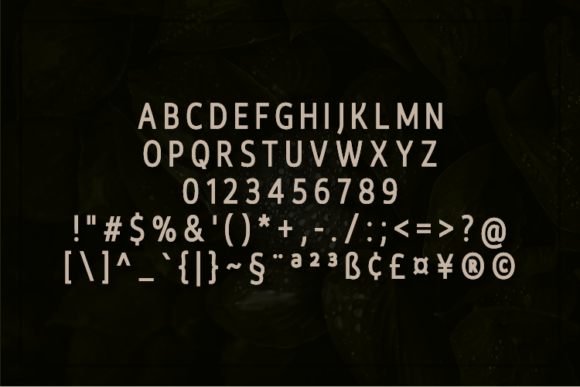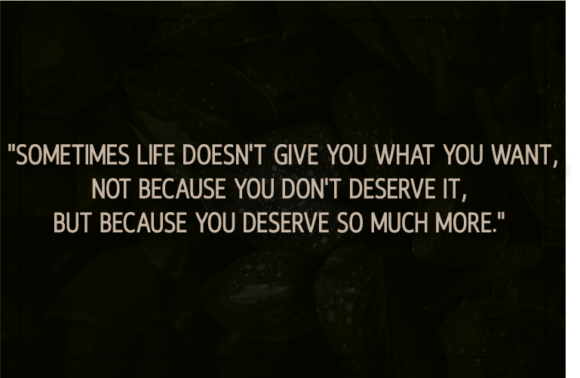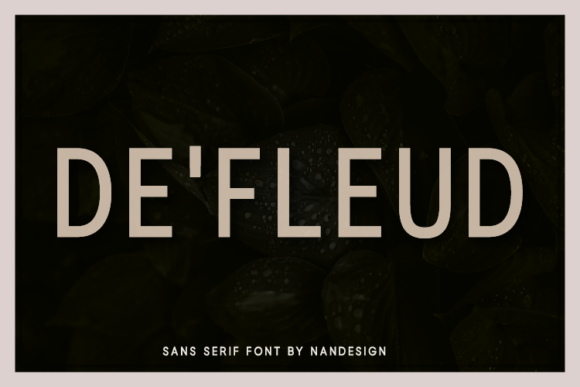
Introducing De’Fleud Font: Elevate Your Designs with Elegant Minimalism
In the world of typography, fonts play a crucial role in conveying messages, expressing emotions, and creating visual identities. For designers, crafters, and creative enthusiasts, finding the right font can make all the difference in bringing their ideas to life. If you’re on the hunt for a font that exudes elegance, simplicity, and sophistication, look no further than De’Fleud. This stunning sans serif font is about to become your new go-to for making your creative projects stand out.
The Essence of De’Fleud: Minimalistic Elegance
De’Fleud is an elegant minimalistic sans serif font that embodies the perfect balance of simplicity and refinement. Its clean lines, subtle curves, and carefully crafted letterforms make it an exceptional choice for a wide range of design applications. Whether you’re working on a logo, branding materials, website, or social media graphics, De’Fleud’s understated yet sophisticated aesthetic is sure to elevate your work.
Key Features of De’Fleud Font
• Minimalistic design: De’Fleud’s sleek and simple design ensures that your message takes center stage, without any distractions.
• Elegant curves: The font’s subtle curves add a touch of sophistication and refinement to your designs.
• Versatile: De’Fleud is suitable for various design projects, from logos and branding to digital and print materials.
• Easy to read: The font’s clear and legible letterforms make it perfect for body text, headings, and titles.
Why Choose De’Fleud for Your Designs?
De’Fleud offers a unique combination of style, versatility, and legibility, making it an excellent choice for designers and crafters. Here are just a few reasons why you should consider adding De’Fleud to your font collection:
• Stand out from the crowd: De’Fleud’s distinctive design ensures that your work will stand out in a sea of more generic fonts.
• Enhance your brand’s image: The font’s elegant and sophisticated aesthetic can help elevate your brand’s visual identity and create a lasting impression.
• Streamline your workflow: With De’Fleud, you can create stunning designs quickly and efficiently, thanks to its clear and legible letterforms.
Using De’Fleud in Your Designs: Tips and Inspiration
Now that you’ve discovered De’Fleud, it’s time to get creative! Here are some ideas and tips to help you make the most of this beautiful font:
• Pair it with bold colors: De’Fleud’s minimalistic design provides the perfect canvas for bold, vibrant colors that will make your designs pop.
• Experiment with typography: Try combining De’Fleud with other fonts to create visually striking typographic compositions.
• Use it for logos and branding: De’Fleud’s elegant design makes it an excellent choice for logos, business cards, and other branding materials.
De’Fleud is more than just a font – it’s a design statement. With its elegant minimalistic design, versatility, and legibility, it’s the perfect addition to any design project. Whether you’re a seasoned designer or a crafty DIY enthusiast, De’Fleud is sure to become your new favorite font. So why wait? Add De’Fleud to your creative toolkit today and watch your designs come to life in a whole new way!